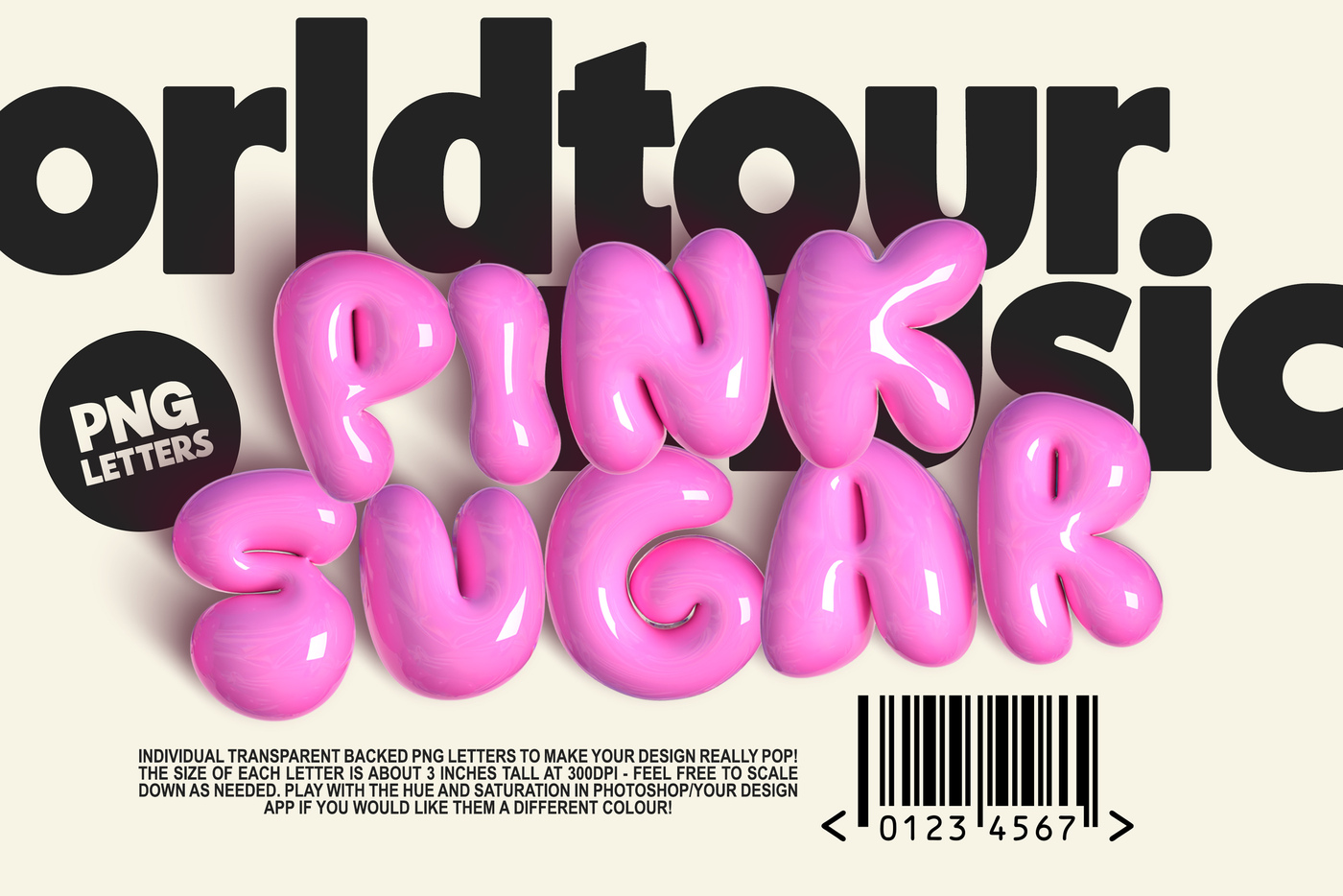
Pink Sugar PNG letters and SVG Font
Have a little fun with a set of super shiny pink png 3D letters :) A SVG Bitmap font version is included too.
I'd recommend using the PNG letters if you'd like to have more control over the letters placement and relative sizing - and adding a playfullness to the whole type layout. These previews have all used the PNG letters only.
The letters print out at a max size of around 3 inches tall ( 300dpi documents) - feel free to downscale as you see fit.